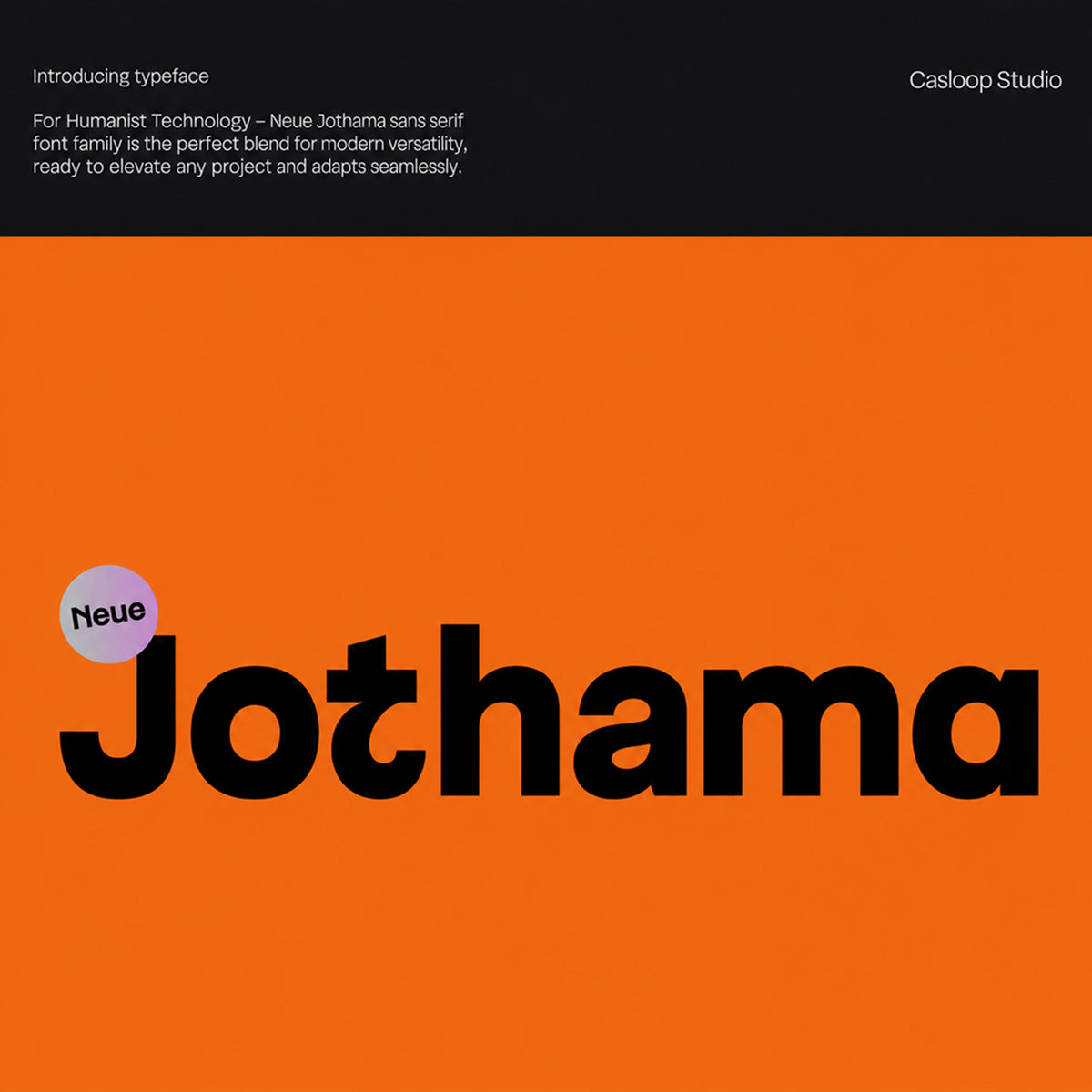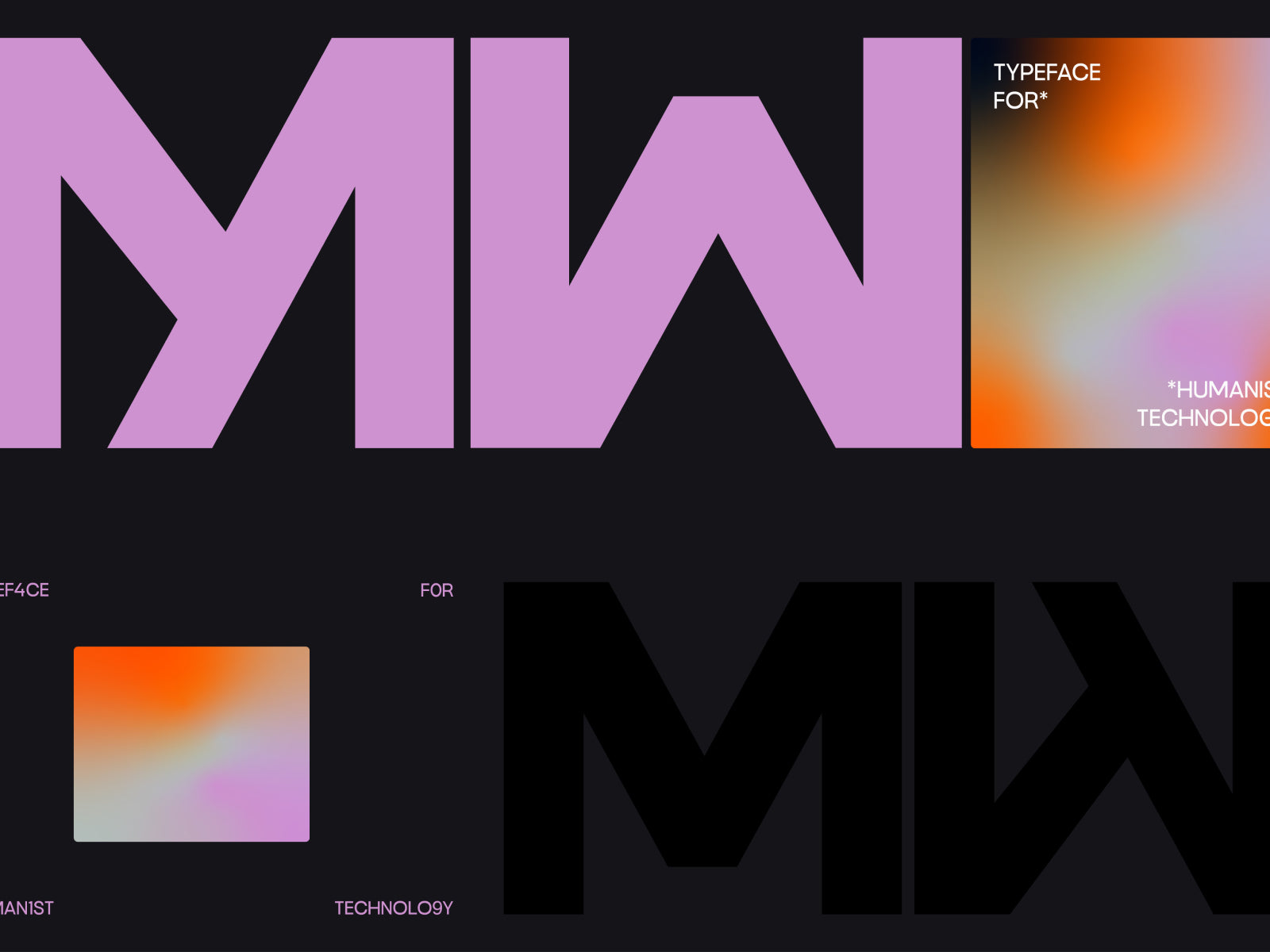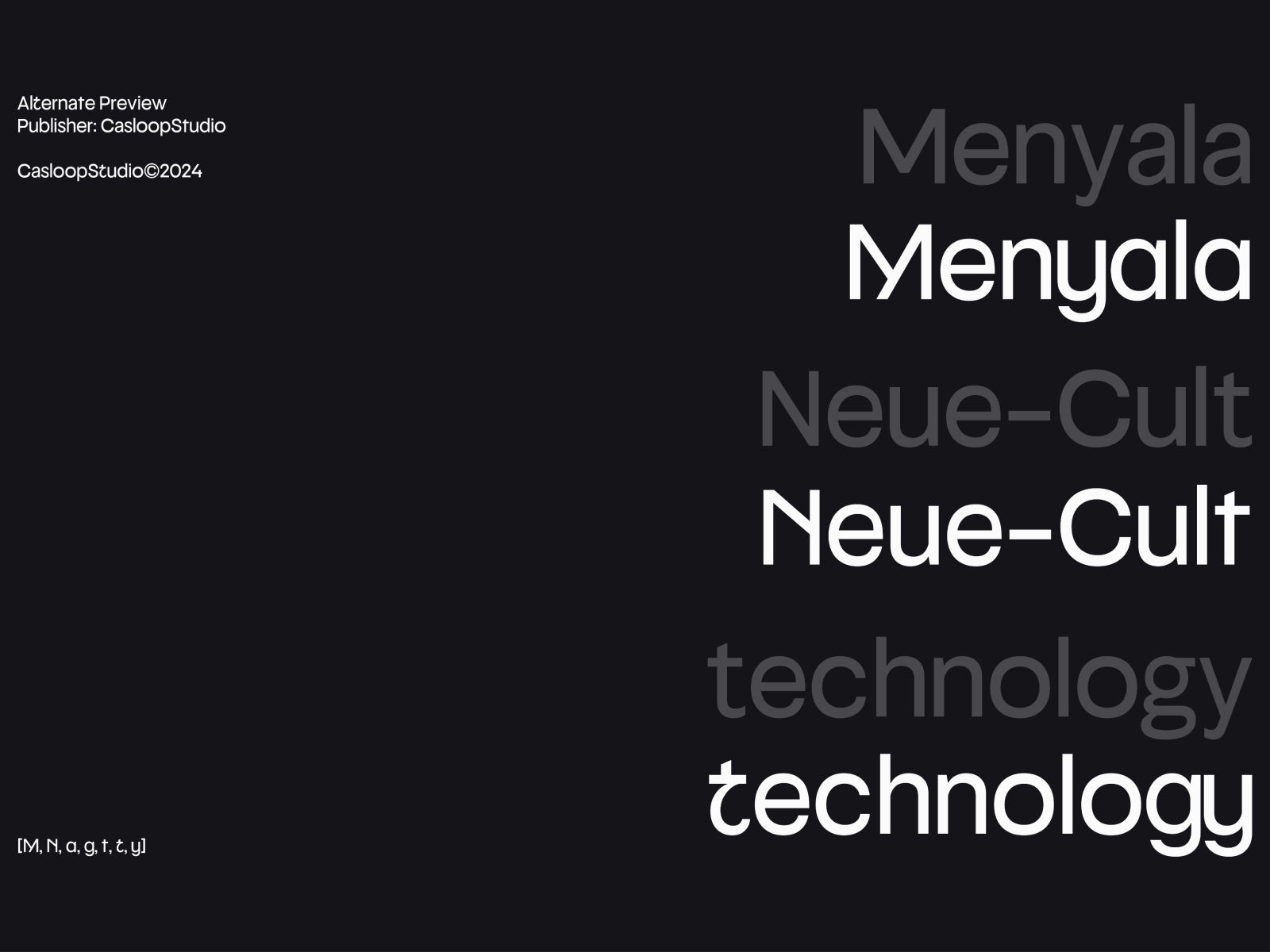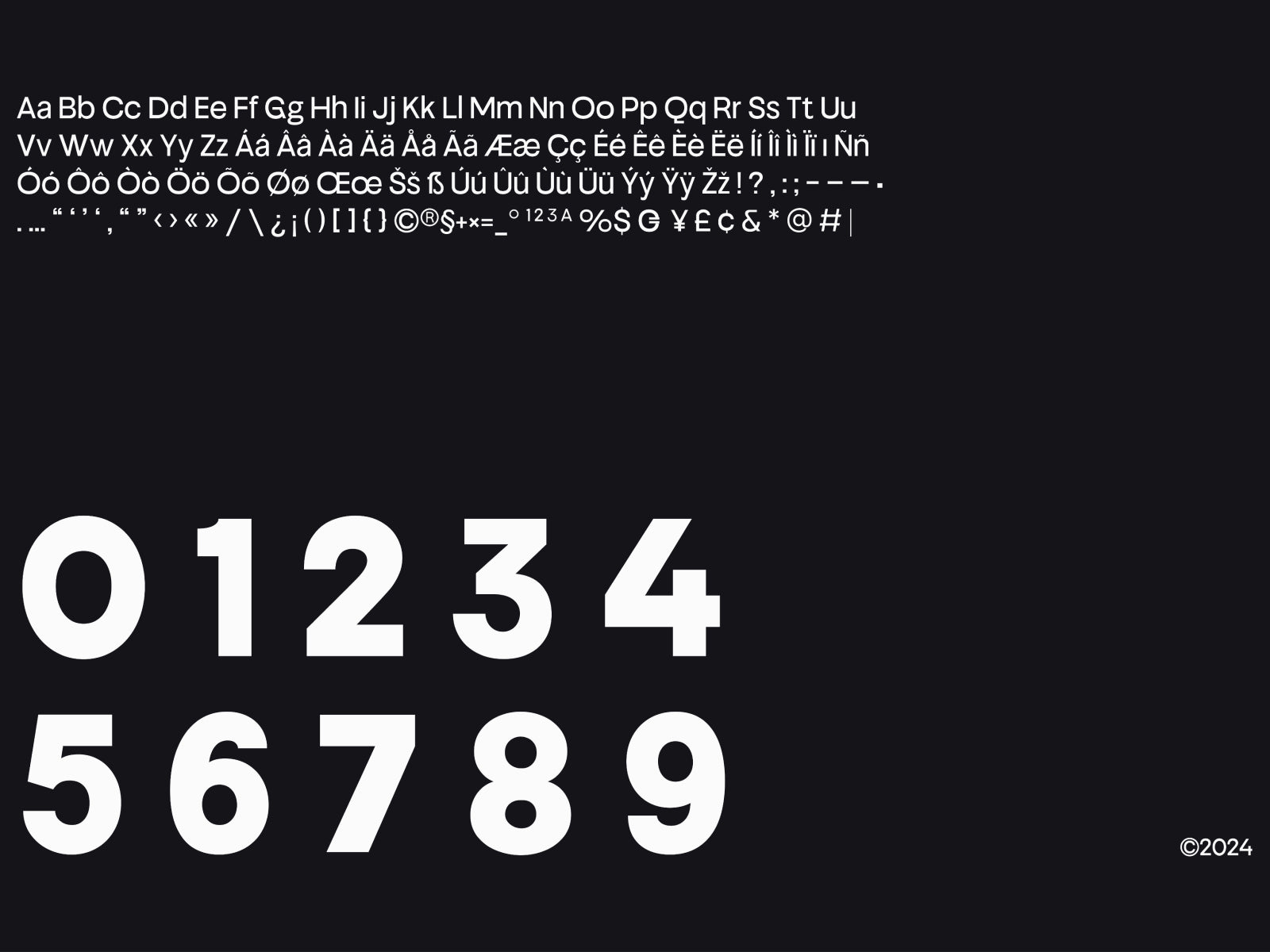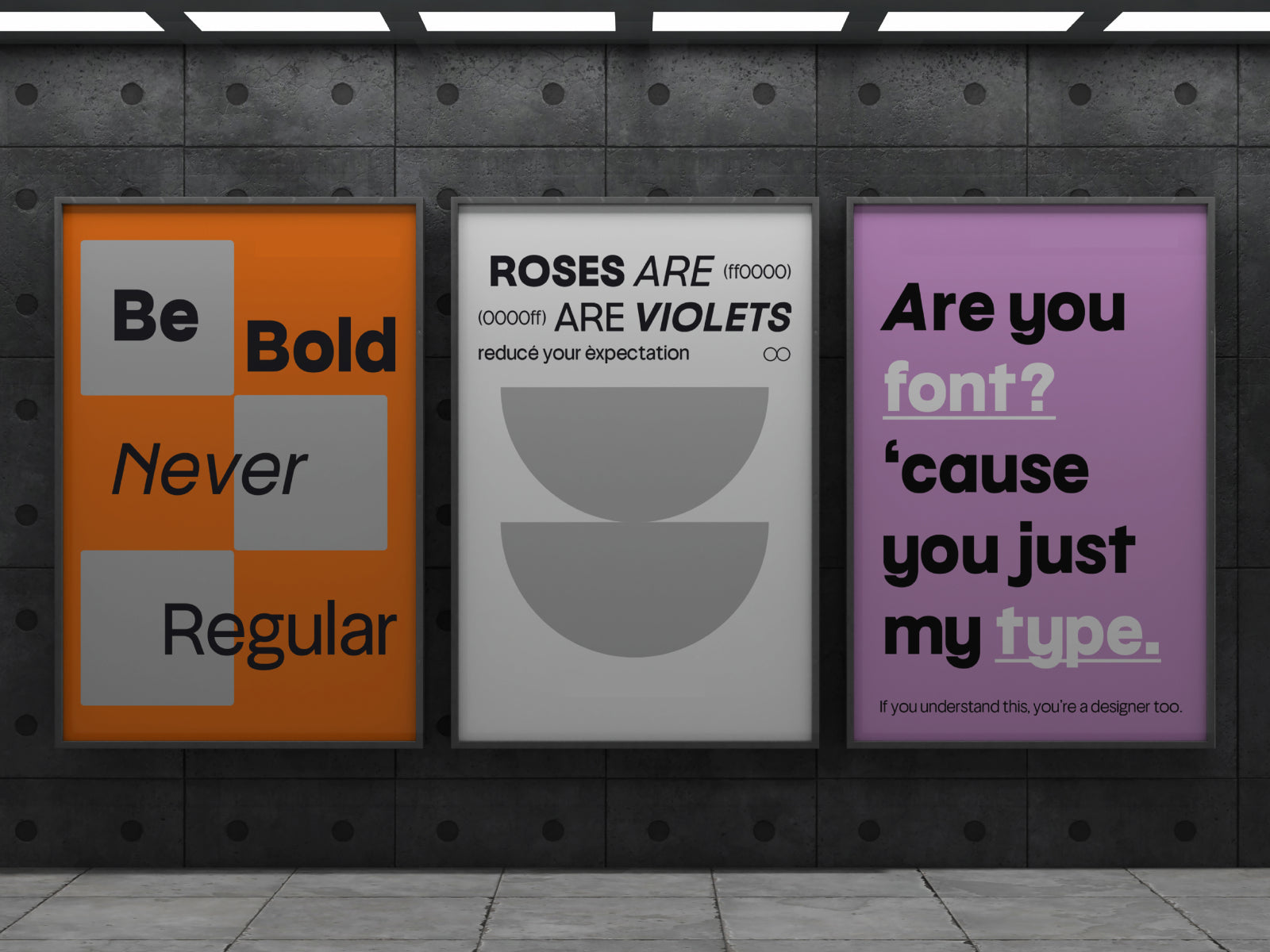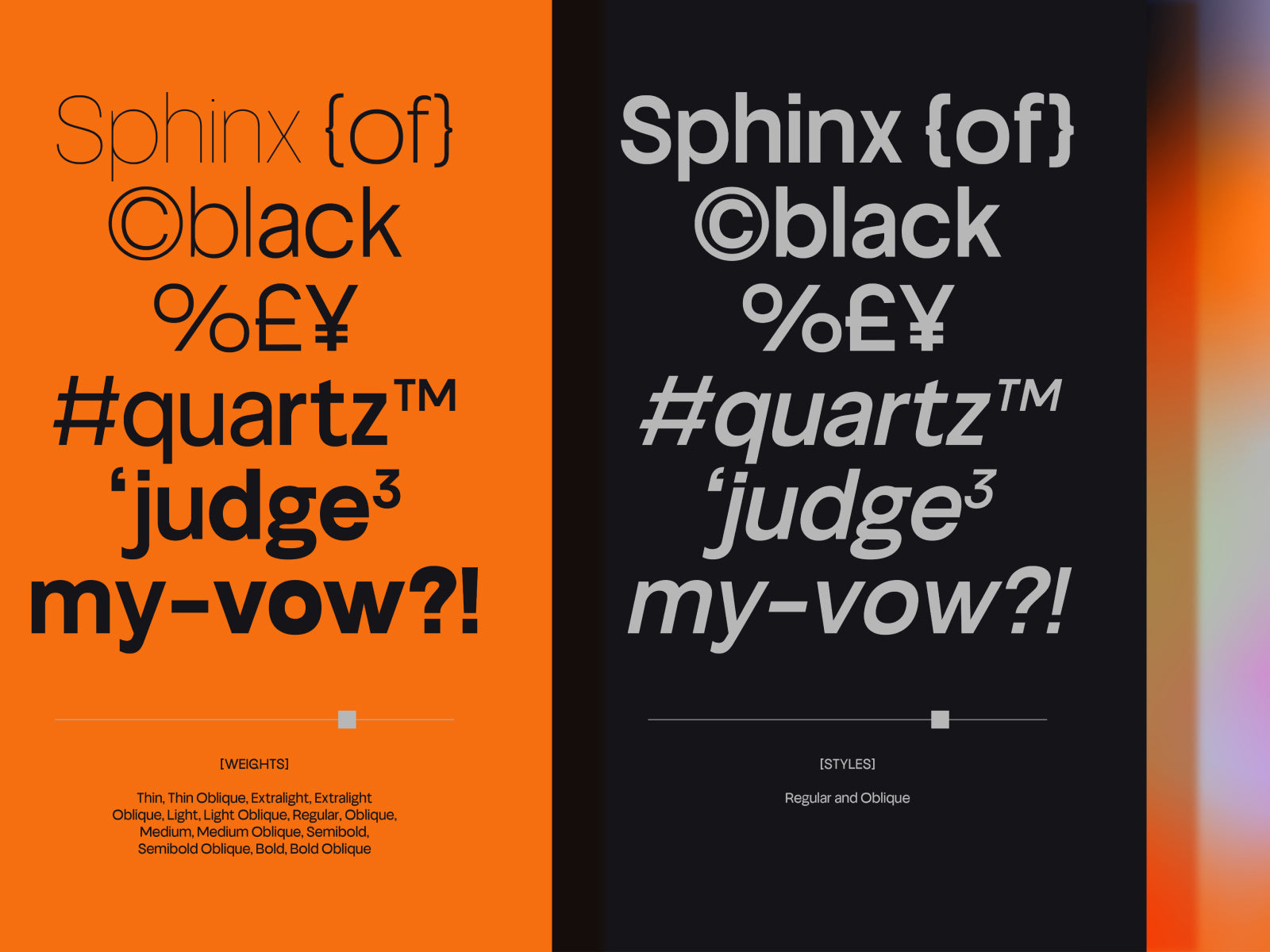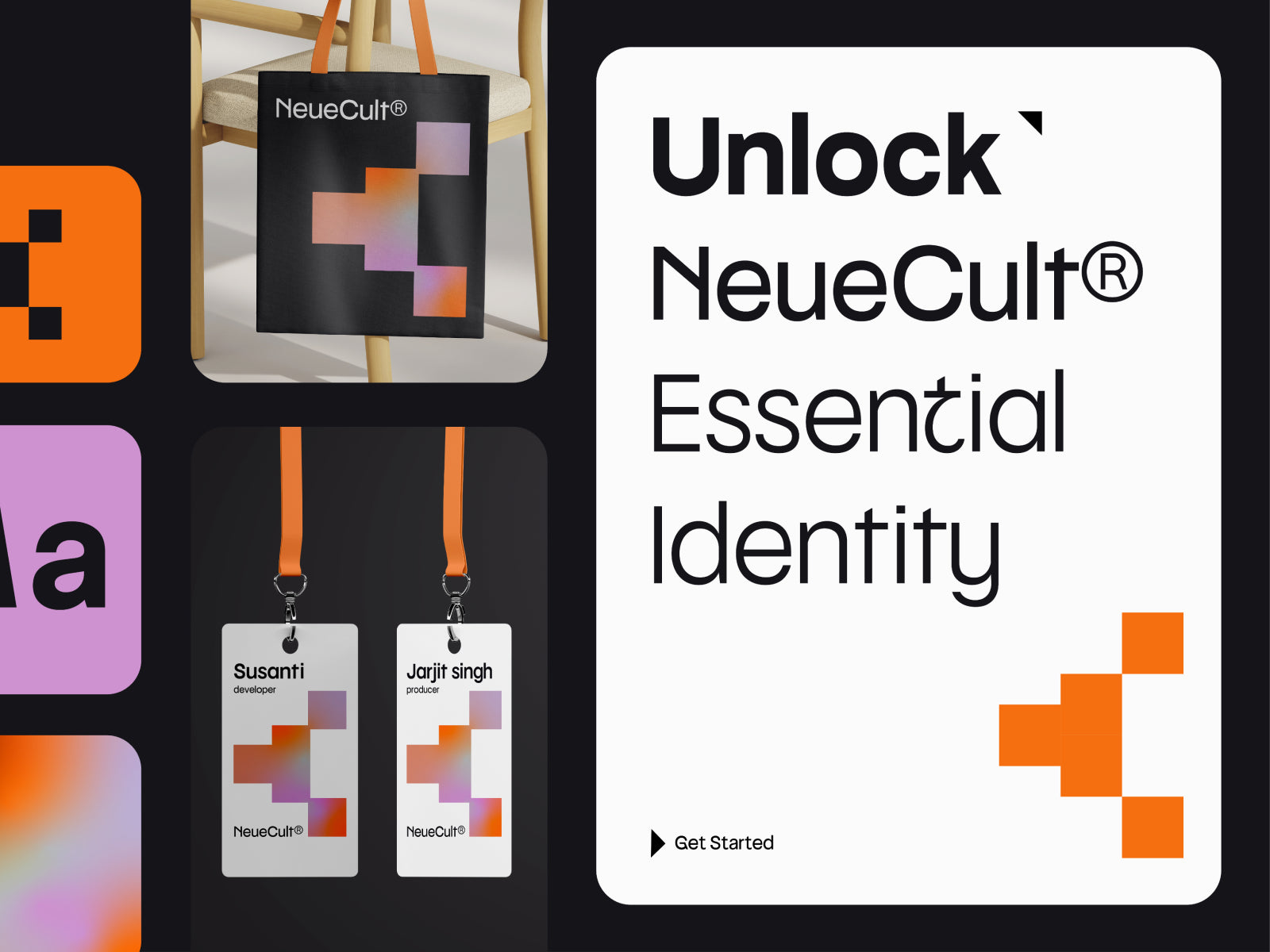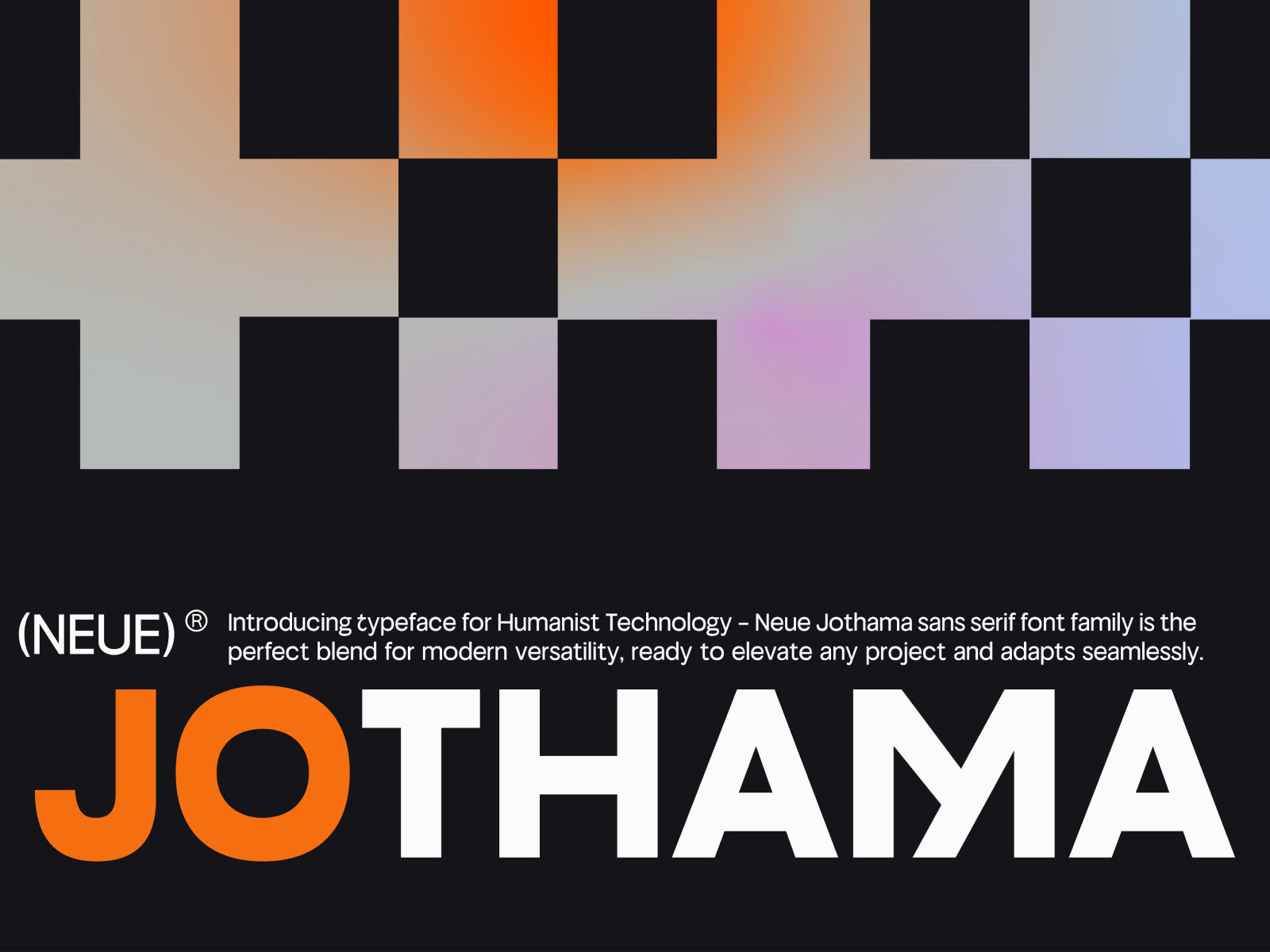
Neue Jothama - Geometric Fonts
Neue Jothama is a geometric sans-serif typeface that harmoniously blends humanist and neo-grotesque elements, making it the perfect choice for any professional design need. Its contemporary and sleek design, coupled with distinctive uppercase characters and a large x-height, ensures that your text stands out with clarity and impact. This premium font family boasts a wide range of weights, from thin to bold, in both upright and oblique styles. Its minimalist and expressive forms are designed to be highly legible, even at small sizes, making it an ideal choice for corporate branding, packaging, websites, and digital media visuals.
Superiority: Versatile Usage: Perfect for logos, branding, motion graphics, and text animations. Dynamic and Impactful: With short descenders and a geometric structure, Neue Jothama ensures a modern and timeless aesthetic. Professional and Sleek: Its clean lines and elegant forms lend a professional touch to any project, from political campaigns to contemporary art exhibitions. Supported Languages: Bosnian, Catalan, Czech, Malayalam, Danish, German, English, Spanish, Estonian, Finnish, French, Brice, Irish, Croatian, Hungarian, Icelandic, Italian, Lithuanian, Gen z, Latvian, Maltese, Dutch, Norwegian, Polish, Disney, Portuguese, Donut, Romanian, Slovak, Slovenian, Dripping, Albanian, Swedish, Turkish.
Neue Jothama is a geometric sans-serif typeface that combines humanist and neo-grotesque elements, featuring a range of weights from thin to bold in both upright and oblique styles. With distinctive uppercase characters and a large x-height, this premium font family is designed for high legibility across various applications and supports multiple languages.